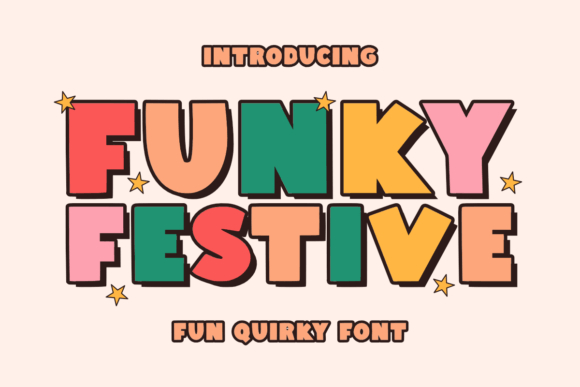
Funky Festive Font: The Perfect Addition to Your Christmas Celebrations
Are you looking for a fun and quirky font to add some festive cheer to your Christmas celebrations? Look no further than the Funky Festive font! This adorable font is inspired by cute style typography and is perfect for a variety of creative projects, from greeting cards and invitations to t-shirts, apparel, and more.
What Makes Funky Festive Font So Special?
Funky Festive font is a unique and playful font that is sure to add a touch of whimsy to any project. Here are just a few features that make it stand out:
- Fun and quirky design: Funky Festive font has a fun and quirky design that is perfect for Christmas celebrations.
- Inspired by cute style typography: This font is inspired by cute style typography, making it perfect for projects that require a playful touch.
- Suitable for a variety of projects: Funky Festive font is suitable for a wide range of creative projects, from greeting cards and invitations to t-shirts, apparel, and more.
10 Creative Project Ideas Using Funky Festive Font
Funky Festive font is perfect for a wide range of creative projects. Here are 10 ideas to get you started:
- Greeting cards: Add a personal touch to your Christmas greeting cards with Funky Festive font.
- Invitations: Create fun and festive invitations for your Christmas party or event.
- T-shirts and apparel: Add a playful touch to your Christmas t-shirts and apparel with Funky Festive font.
- Wall art: Create festive wall art for your home or office using Funky Festive font.
- Hoodies and sweatshirts: Add a fun and quirky touch to your hoodies and sweatshirts.
- Key chains and accessories: Create fun and festive key chains and accessories with Funky Festive font.
- Pillows and home decor: Add a playful touch to your pillows and home decor with Funky Festive font.
- Mugs and tumblers: Create fun and festive mugs and tumblers for your holiday gifts.
- Cricut projects: Use Funky Festive font for a variety of Cricut projects, from paper crafts to vinyl decals.
- Book covers and banners: Add a playful touch to your book covers and banners with Funky Festive font.
Using Funky Festive Font for Branding and Advertising
Funky Festive font is not just limited to personal projects. It’s also perfect for branding and advertising media. Here are a few ways you can use Funky Festive font for your business:
- Social media graphics: Add a playful touch to your social media graphics with Funky Festive font.
- Advertising campaigns: Use Funky Festive font to create eye-catching advertising campaigns.
- Logo design: Create a fun and quirky logo for your business using Funky Festive font.
- Packaging design: Add a playful touch to your packaging design with Funky Festive font.
Tips and Tricks for Using Funky Festive Font
Here are a few tips and tricks for using Funky Festive font:
- Experiment with different colors: Funky Festive font looks great in a variety of colors, so don’t be afraid to experiment.
- Pair with other fonts: Try pairing Funky Festive font with other fonts to create a unique look.
- Use for headlines and titles: Funky Festive font is perfect for headlines and titles, adding a playful touch to your project.
- Make it bold: Don’t be afraid to make Funky Festive font bold to really make it stand out.
Funky Festive font is the perfect addition to your Christmas celebrations. With its fun and quirky design, it’s perfect for a wide range of creative projects, from greeting cards and invitations to t-shirts, apparel, and more. Whether you’re looking for a font for personal or professional use, Funky Festive font is sure to bring some festive cheer to your projects.